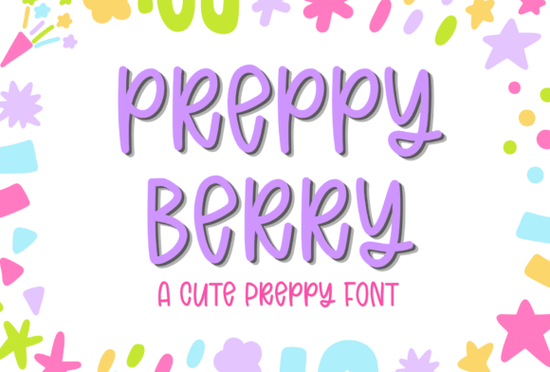
The Preppy Berry Font is a playful handwritten typeface with a cute preppy style that fits right into modern creative projects. Its bouncy letterforms and smooth curves make it a popular choice for planners, stickers, t-shirt designs, invitations, social media graphics, and Cricut crafts. Whether you're a print-on-demand seller or a hobbyist who loves aesthetic designs, this font brings a cheerful, youthful energy to your work.
What Makes Preppy Berry Font Stand Out?
Plenty of handwritten fonts look nice on screen but fall apart in real projects. Preppy Berry avoids that problem. The letterforms are clean and consistent, so the font stays readable even at smaller sizes. That matters when you're designing stickers, labels, or planner pages where text needs to be clear.
The "preppy" style gives it a trendy, polished feel that sits somewhere between casual handwriting and a styled script. It doesn't look sloppy or overly formal it's that sweet spot that works for greeting cards, brand logos, social media posts, and sublimation designs.
Is It Easy to Use With Cricut and Cutting Machines?
Yes. One of the reasons crafters choose Preppy Berry is that the letterforms cut cleanly on machines like Cricut and Silhouette. The strokes don't have extreme thin spots that tear or snag during weeding, which saves you time and frustration.
What Projects Work Best With This Font?
Preppy Berry is versatile, but it really shines in projects that call for a sweet, approachable look. Here are some ideas:
- Planners and journals headers, tabs, and decorative quotes
- Sticker sheets labels, name tags, and themed sticker packs
- T-shirt designs phrases, monograms, and layered typographic art
- Invitations birthday parties, baby showers, and casual events
- Social media graphics Instagram stories, Pinterest pins, and highlight covers
- Sublimation projects mugs, tote bags, and custom gifts
- Branding logos, business cards, and packaging for small businesses with a playful identity
How Does It Compare to Other Handwritten Fonts?
Preppy Berry fits right into this mix as your go-to everyday cute font the one you reach for when you want something friendly, trendy, and easy to work with.
Tips for Getting the Most Out of Preppy Berry
- Pair it with a simple sans-serif for body text so the handwritten style doesn't compete with itself.
- Use it for headlines and short phrases rather than long paragraphs that's where its personality shows.
- Experiment with colors pastels, berries, and soft neutrals complement its preppy aesthetic.
- Try adding slight letter spacing in your design software if you want a more airy, relaxed feel.
- Create matching sets use it across stickers, social posts, and packaging to build a consistent brand look.
Starting with a clear plan what you're designing, who it's for, and where it'll be used helps you make the most of any font. Preppy Berry gives you a solid, versatile foundation to build on, whether you're crafting a single birthday invitation or launching a full product line.